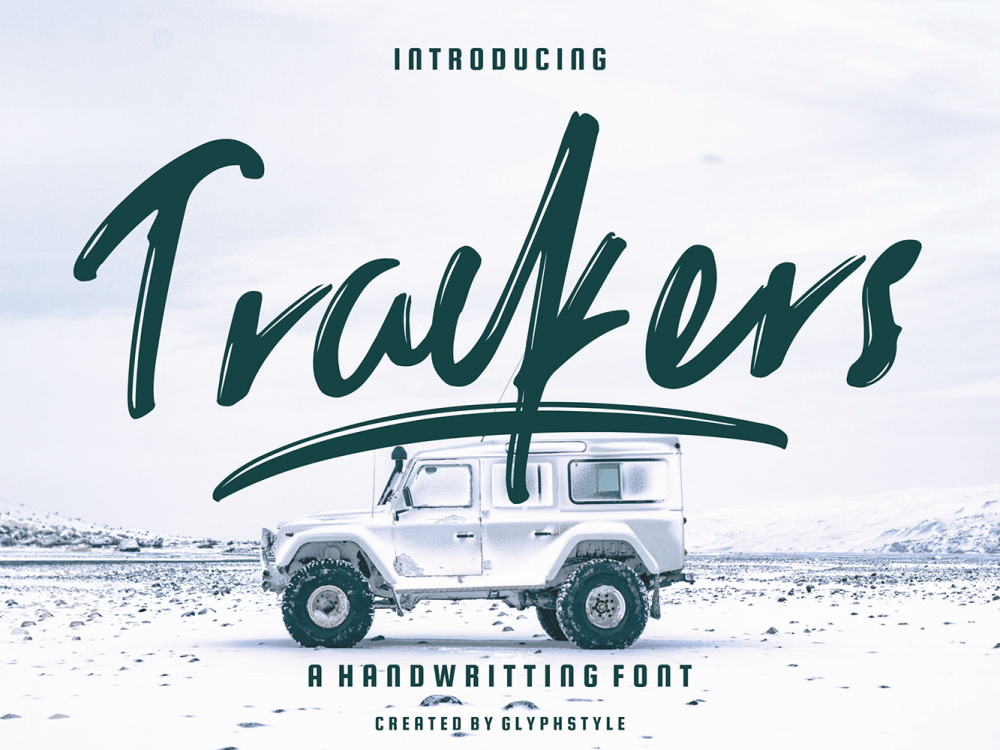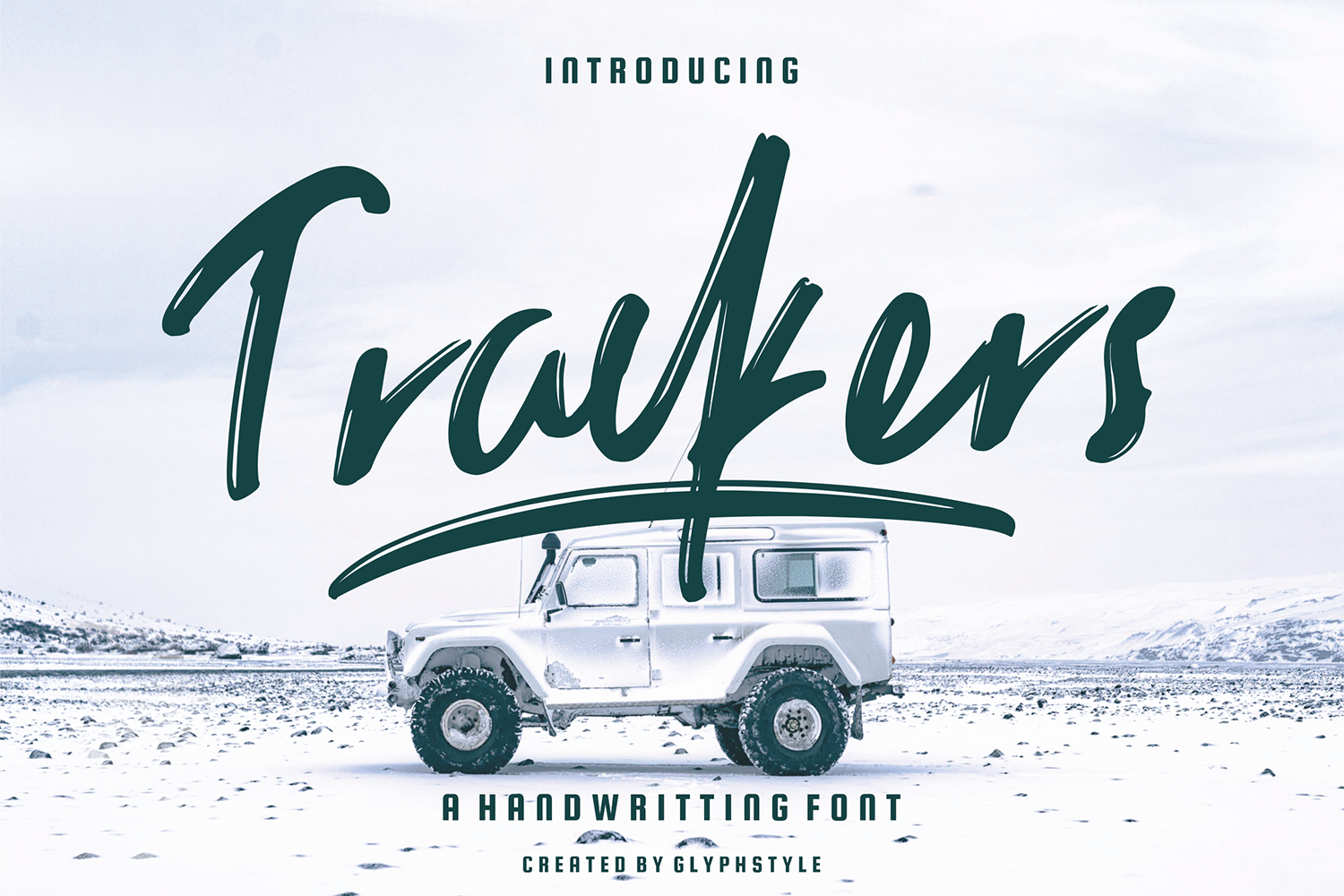
Trackers Handwritten Free Font
Trackers Handwritten Free Font is a scripted handwritten font with an elegant style that mimics writing with a brush. This font is detailed and texture, slightly thick and natural like a hand stroke. This font is very suitable for creating various design projects that require a modern scripting font. These can be memorable posters, wedding invitations, postcards, branding, flyers, and more. Improve the quality and increase the popularity of your design projects using this font. If you like it don’t forget to check out the full version.